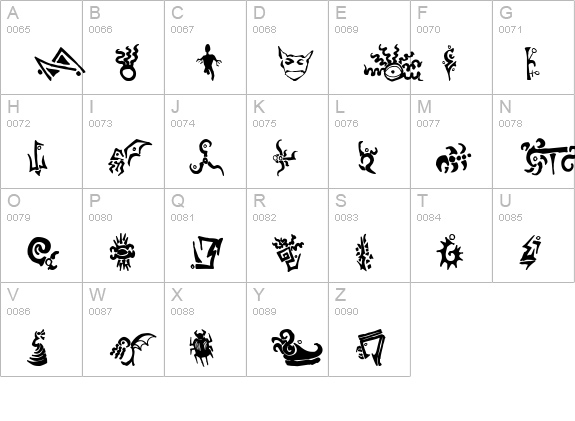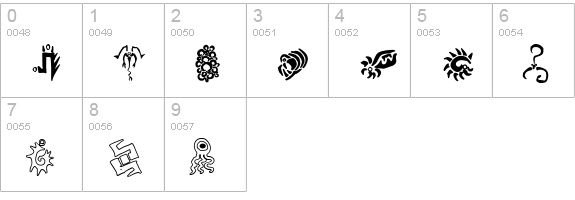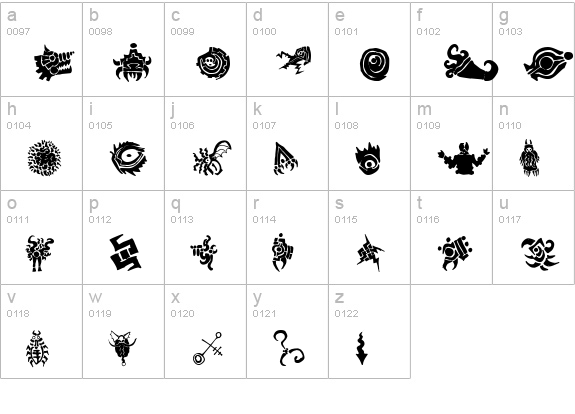
Cathzulu Extraz Font Details
Cathzulu Extraz font is a stunning display typeface that exudes modernity and sophistication. With its unique and eye-catching design, this font is perfect for making a bold statement in your projects. Its sleek lines and intricate details make it a versatile choice for a wide range of designs, from logos to branding materials to social media graphics. What sets Cathzulu Extraz font apart is its elegant and futuristic aesthetic, which instantly captivates the viewer's attention. The font's sharp angles and sleek curves create a sense of movement and dynamism, making it an ideal choice for projects that require a touch of contemporary flair. Moreover, Cathzulu Extraz font is available for free download at FontsMarket.com, making it easily accessible to designers and creatives looking to enhance their projects with a touch of sophistication. Whether you're working on a branding project, a website design, or any other creative endeavor, Cathzulu Extraz font is sure to elevate your work and leave a lasting impression on your audience. Download this font today and bring your designs to the next level!